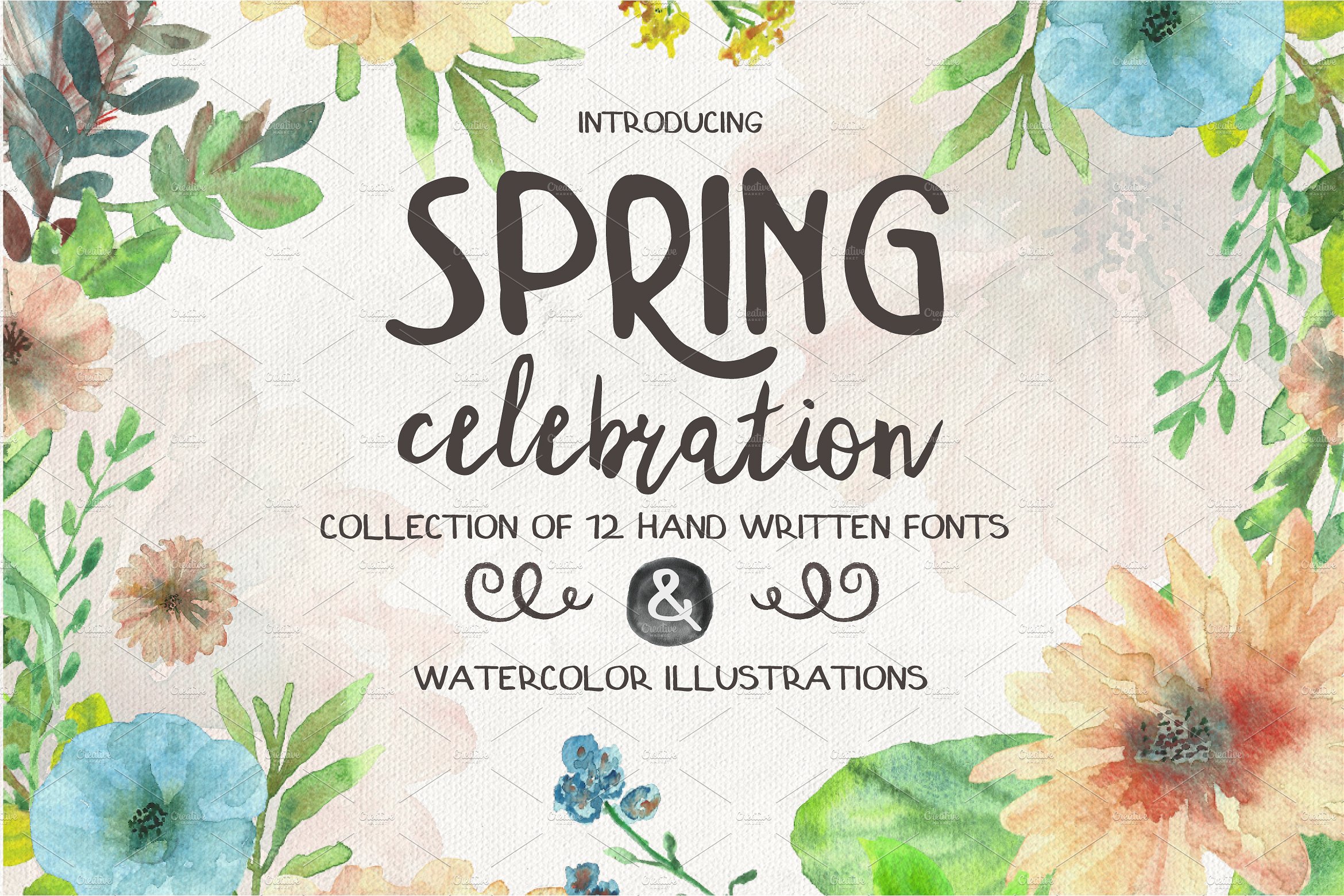
Spring Celebration
Spring Celebration Font
Collection of hand written fonts and watercolor illustrations. Welcome to the spring celebration of a hand made goodies 🙂 This collection includes hand written fonts, watercolor florals, banners, swirls and splashes. You can use it for various purposes.such as logos, wedding invitation, t-shirt, label, badges ,greetings, packaging, stationery, merchandise, posters, websites, digital presentations and more….